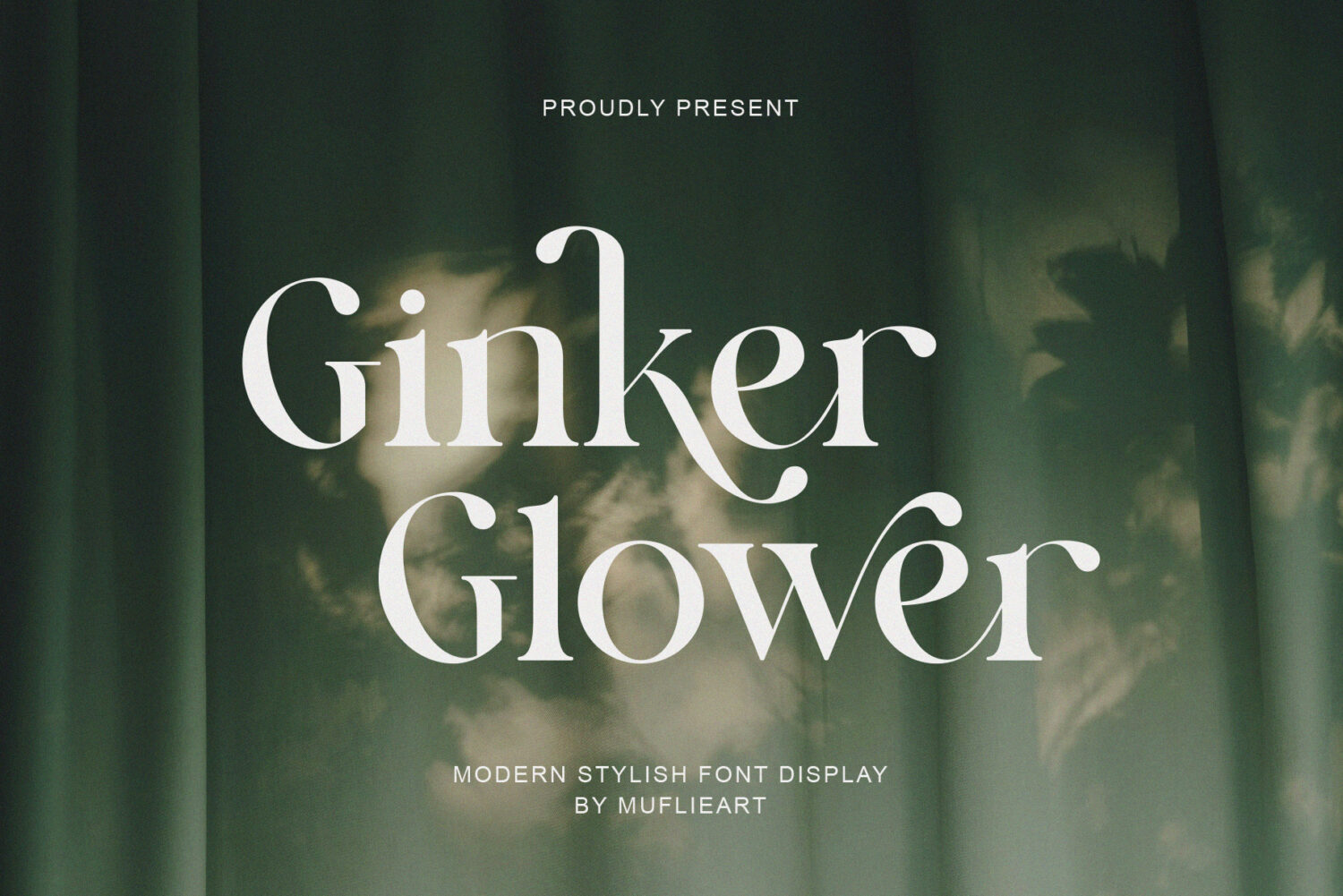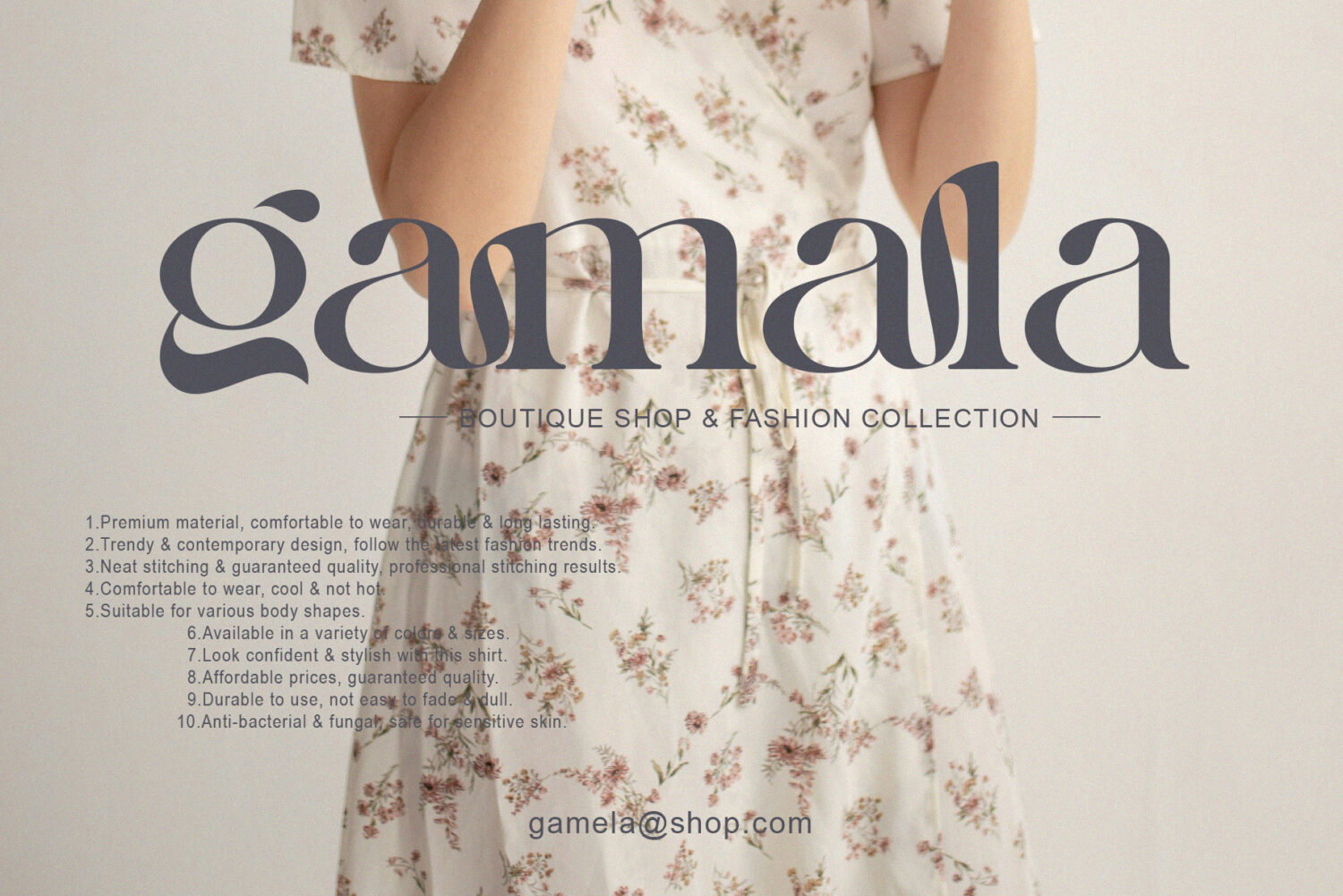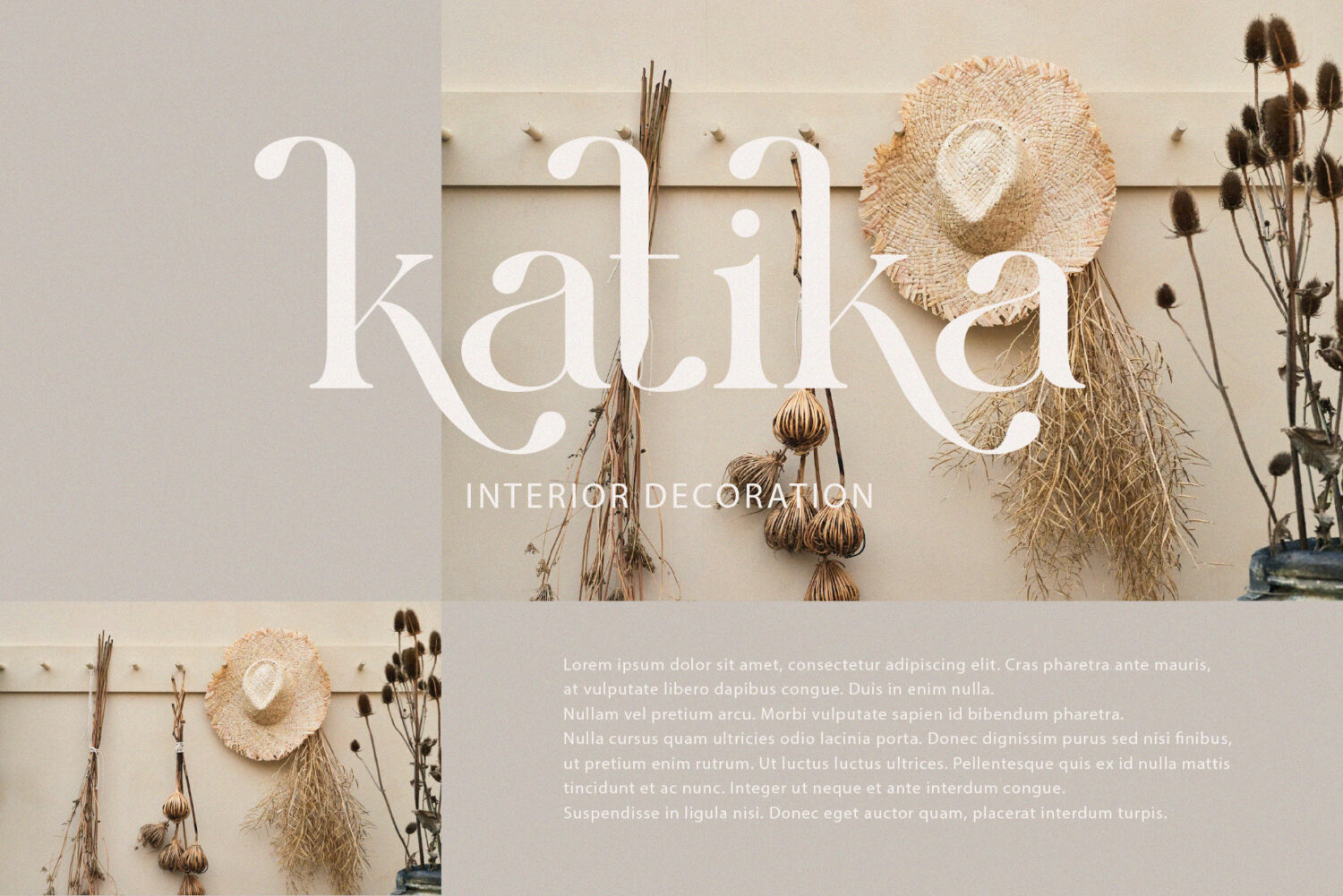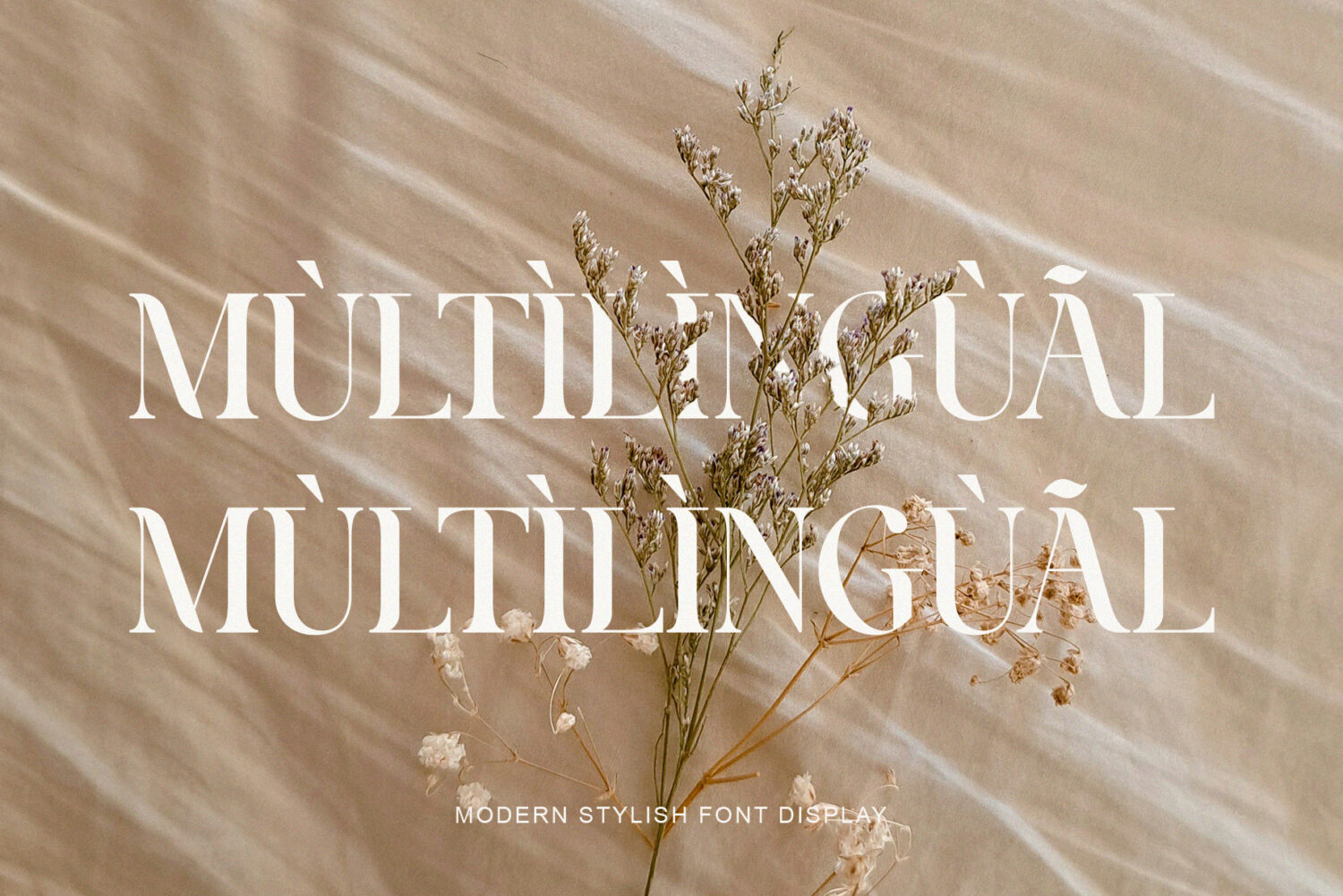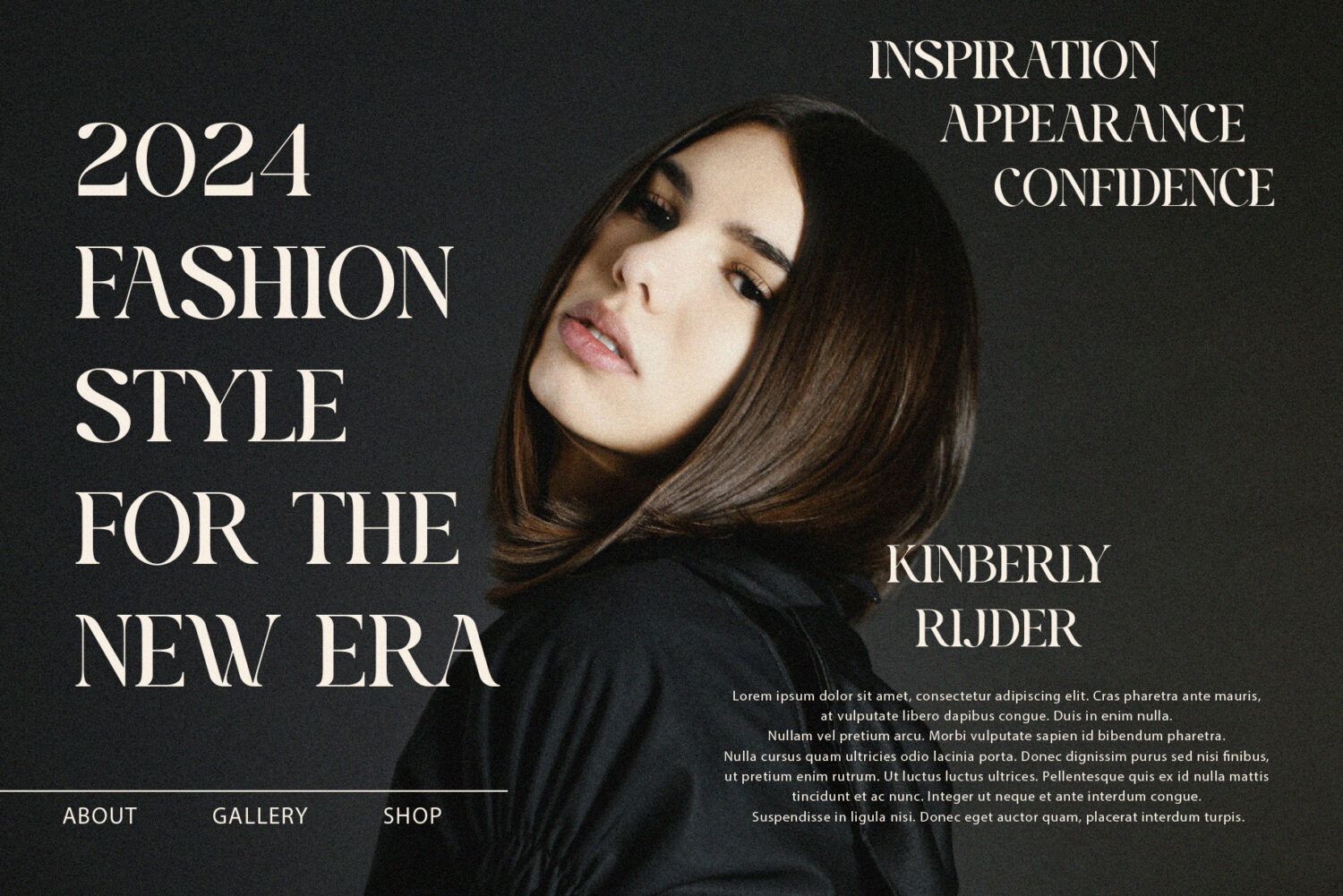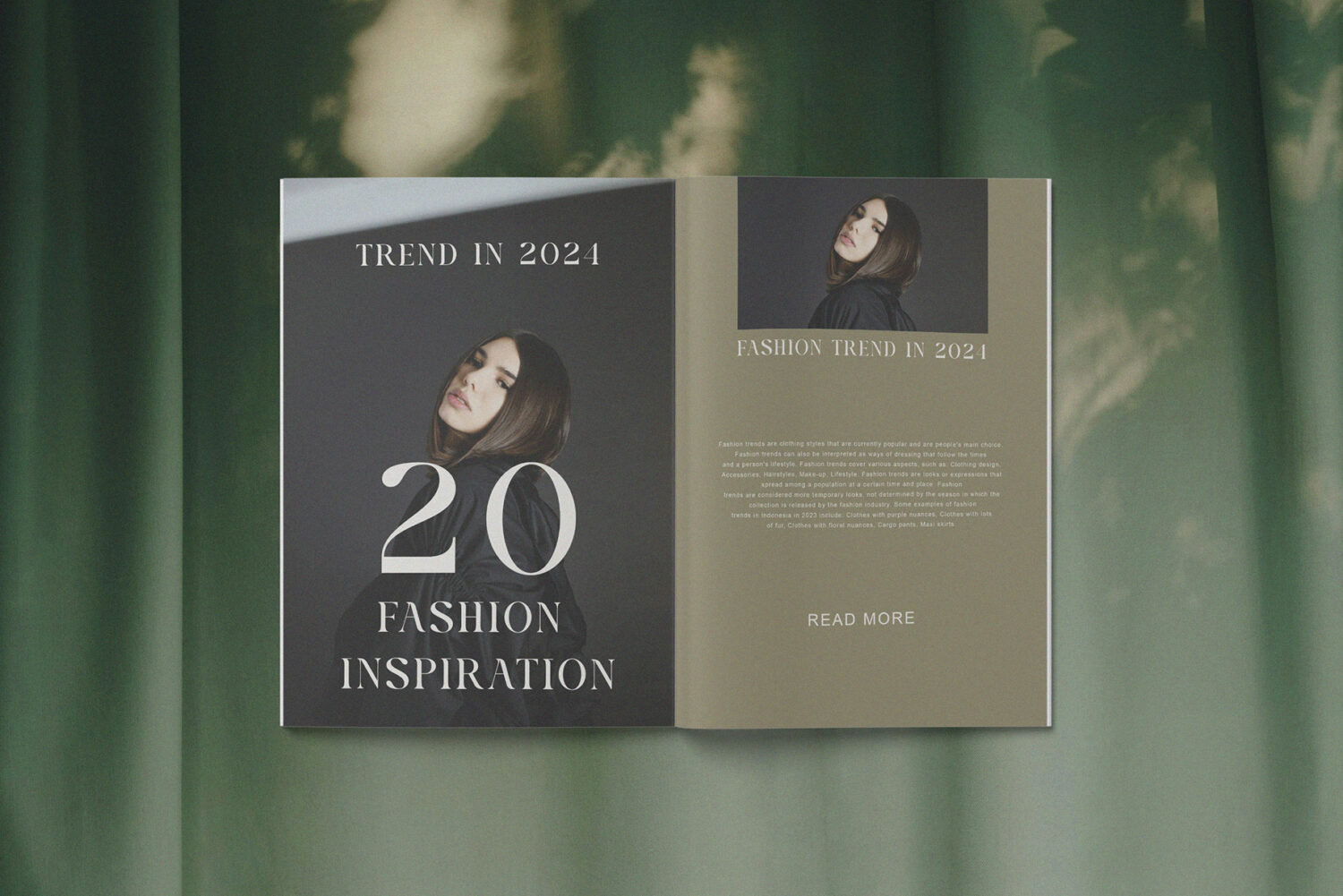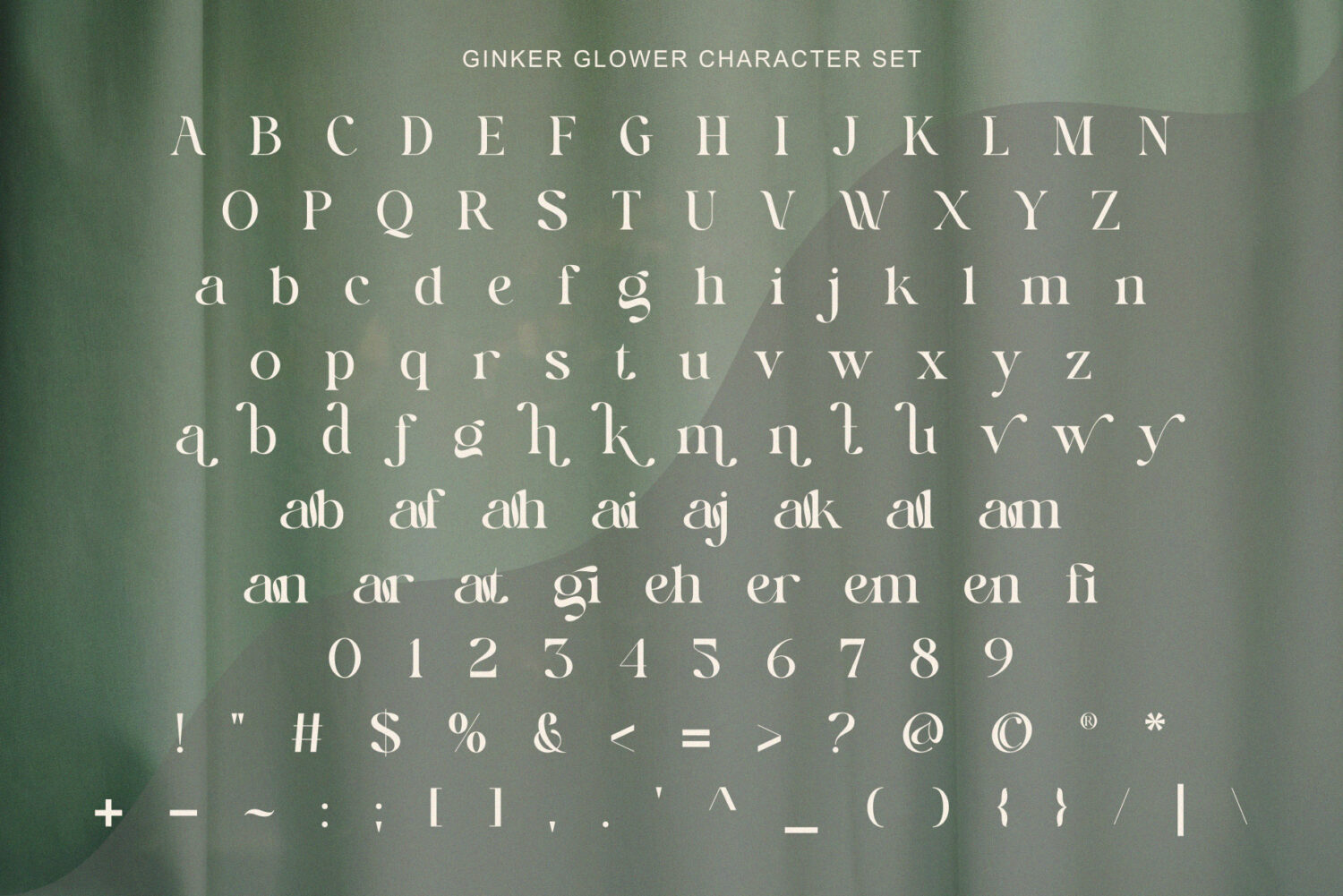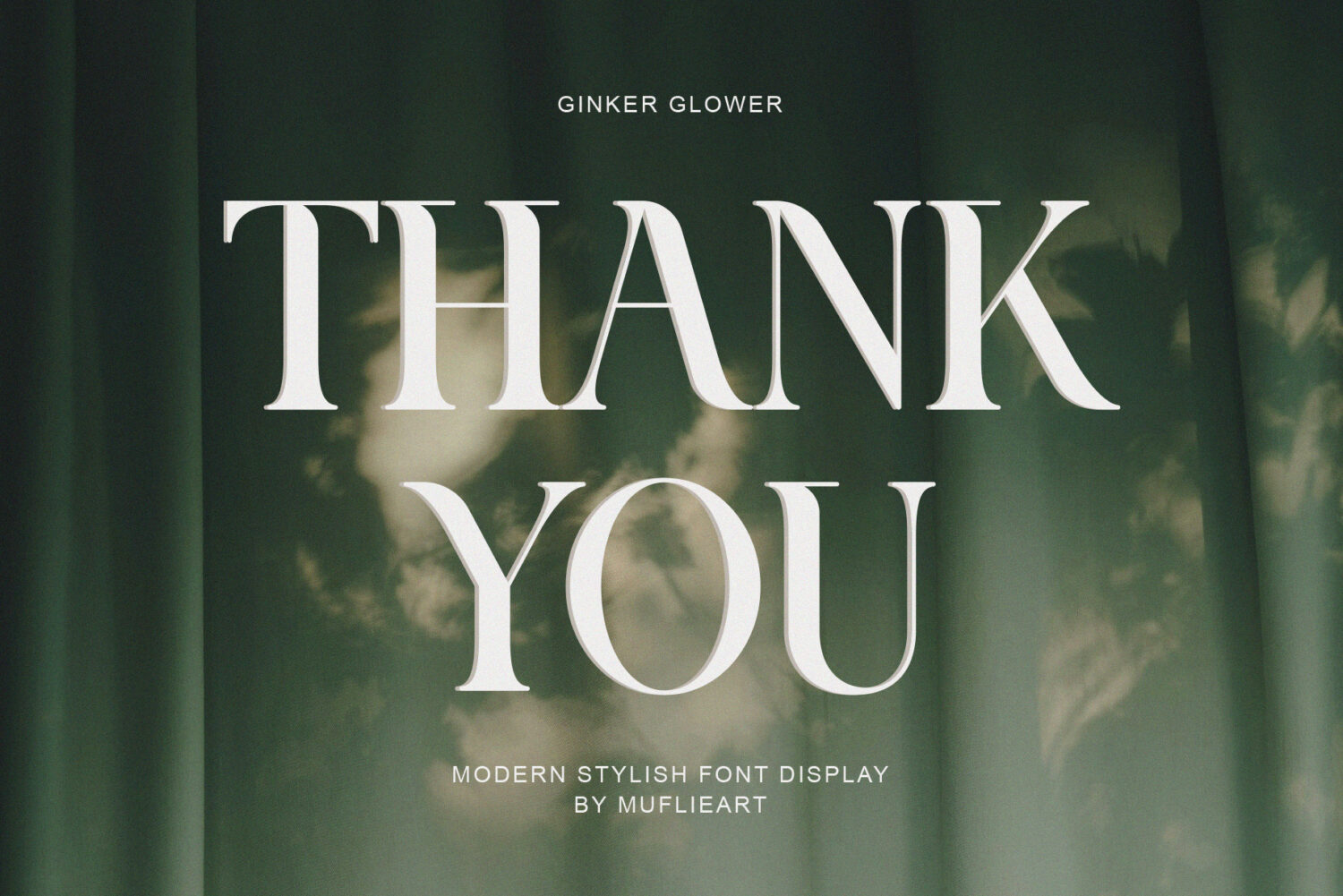
Introducing **Ginker Glower** An elegant, beautiful and modern serif typeface. With its modern and minimalist appearance, Ginker Glower brings a luxurious, classy and clean style to your projects such as websites, modern logos, branding identities, social media quotes, wedding stationery, magazines and various other needs!
Ginker Glower displays unique and classy capital letters A to Z and is also equipped with alternative letters and unique ligatures so that Ginker Glower is a beautiful font that can be adapted to various projects and jobs that you want.